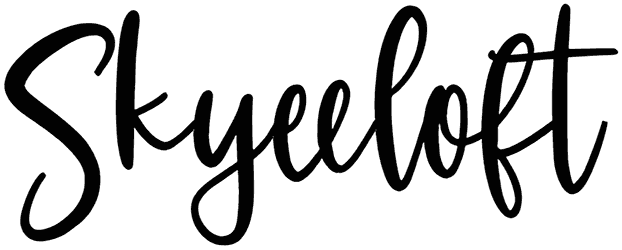
Skyeeloft Font
Sometimes, adding a personalized touch to graphic content such as posters, flyers, menus, invitations, and greeting cards would be a brilliant strategy for strongly impressing the audience at first glance, and in this way, a script font like Skyeeloft might help you to achieve your goal.
Due to the crooked and tilted characters of this handwritten font, it can share a sense of drama, art, professionalism, and whimsicalness. Don’t forget that it doesn’t support numbers.